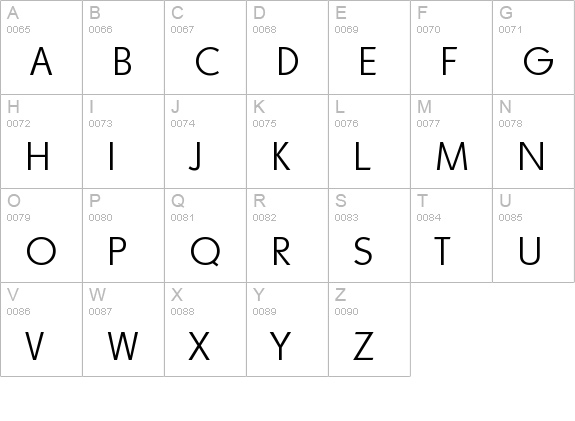
Sharnay Extralight Font Details
Sharnay Extralight is an airy, ultra-refined variant in the Sharnay typeface family \xE2\x80\x94 well suited to minimalist headlines and refined display use.
Introducing Sharnay Extralight, a captivating font that effortlessly combines elegance and modernity. With its delicate and refined letterforms, this typeface is perfect for adding a touch of sophistication to any project. Sharnay Extralight's slender and graceful strokes create a sense of lightness and fluidity, making it the ideal choice for luxury brands, fashion editorials, and high-end designs. This font's versatility is showcased through its ability to adapt to various contexts, whether it be for print or digital purposes. Its clean and minimalist character design ensures legibility, even at small sizes, while still maintaining its distinct personality. What sets Sharnay Extralight apart is not only its impeccable design but also its accessibility. As a free font, it offers an opportunity for designers, creatives, and enthusiasts alike to elevate their work without breaking the bank. You can freely download Sharnay Extralight at FontsMarket.com, where it is readily available for personal and commercial use. Whether you're designing a sleek logo, crafting an elegant invitation, or simply seeking to add a touch of sophistication to your project, Sharnay Extralight is the perfect choice. Embrace the timeless beauty and versatility of this font and let it elevate your designs to new heights.